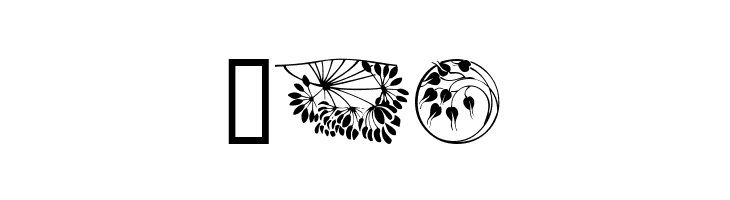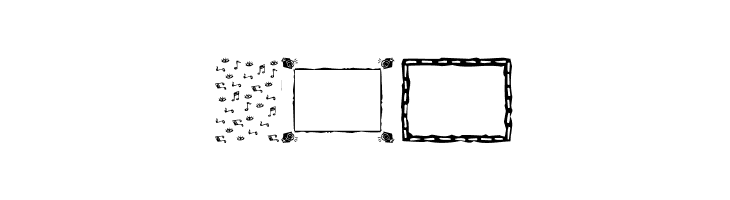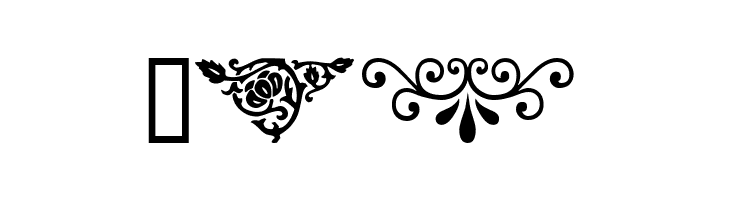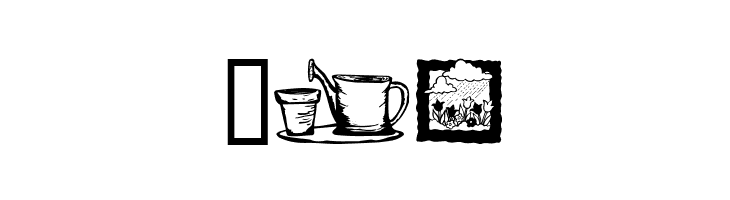
• On the farm
A playful, decorative font with bold, outlined characters in a farm theme.
• Ornamental Elements
Intricate ornamental dingbats with floral and classical motifs.
• Maskes
A decorative font where each character is an ornate mask illustration.
• Paisley II
Ornamental paisley dingbat font with detailed motifs.
• Dogs and Cats
• Frames and Backgrounds
A diverse set of decorative rectangular frames and backgrounds.
• Paisley
Ornate paisley-patterned decorative font.
• Ornamental Decoration
Highly decorative ornamental motifs for embellishment.
• Hats II
A modern, geometric font with characters enclosed in bold frames, ideal for tech-themed designs.
• Garden Time
Bold, decorative font with high contrast.